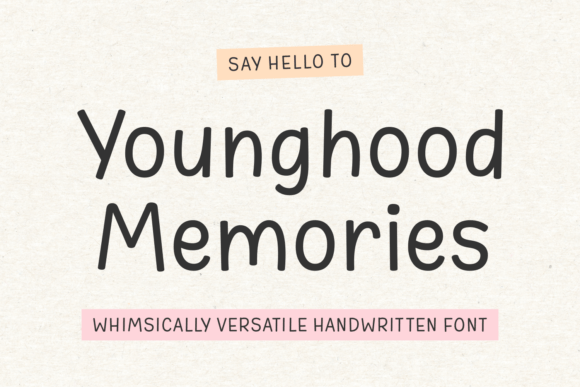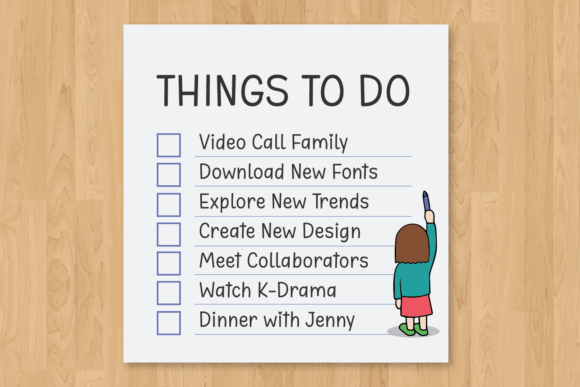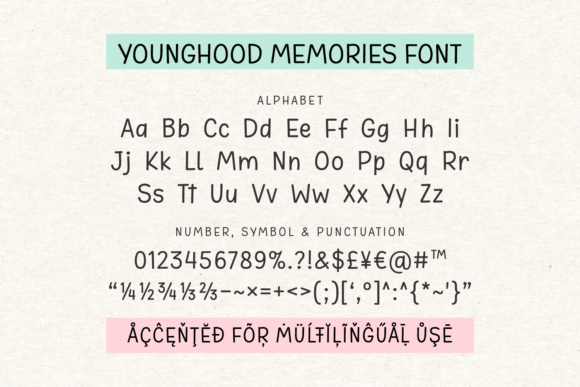
Younghood Memories Font
The Younghood Memories typeface is a whimsical and versatile handwritten font designed to evoke a sense of pure innocence and wonder. The characters have a playful, hand-drawn quality, crafted for readability and overall neatness, which imparts a unique and personal touch to any project. The font includes both uppercase and lowercase letterforms, giving it a natural and authentic appearance, as if each letter were written by hand. This distinct style makes it an excellent choice for creators who want to add warmth, sincerity, and a touch of childlike charm to their designs. The character set is extensive, featuring a full range of uppercase and lowercase letters, numbers, and a wide variety of punctuation marks and symbols.
This font is especially well-suited for individuals and businesses aiming to create a friendly, approachable, and heartfelt aesthetic. It is an ideal option for greeting cards, invitations, scrapbooking, and personal branding projects that require a soft, humanistic feel. The font’s features also include support for multilingual characters, ensuring its adaptability for a diverse array of content and languages. Its whimsical nature and comprehensive character set make it a valuable asset for designers, bloggers, and anyone looking for a font that combines a nostalgic feel with modern functionality.